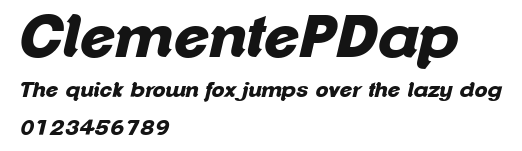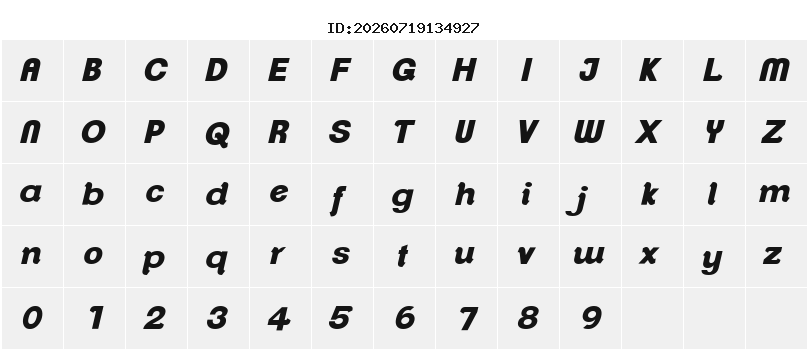
• Font Name: ClementePDap
• Font Style: HeavyItalic
• Manufacturer: Prescott Design
About ClementePDap.ttf
ClementePDap.ttf is a modern, elegant sans-serif font designed for ultimate readability and visual harmony. Perfect for branding, headlines, web design, and print materials.